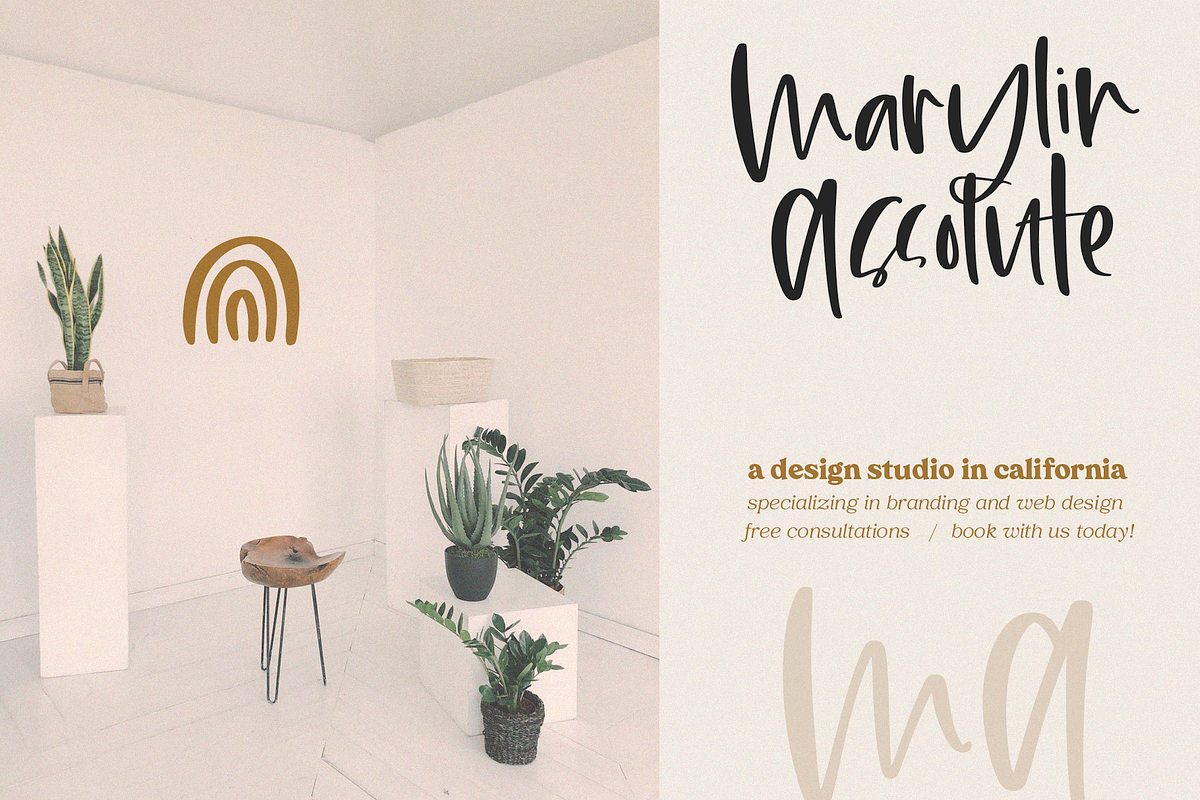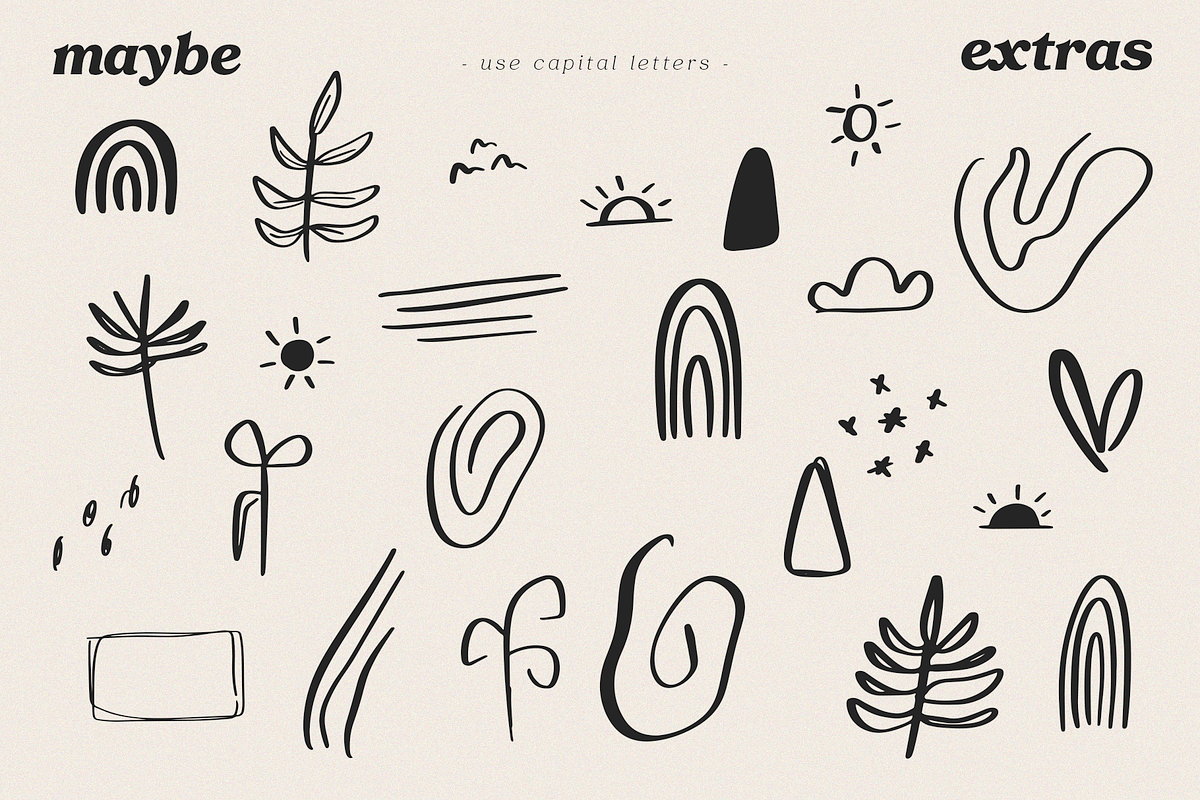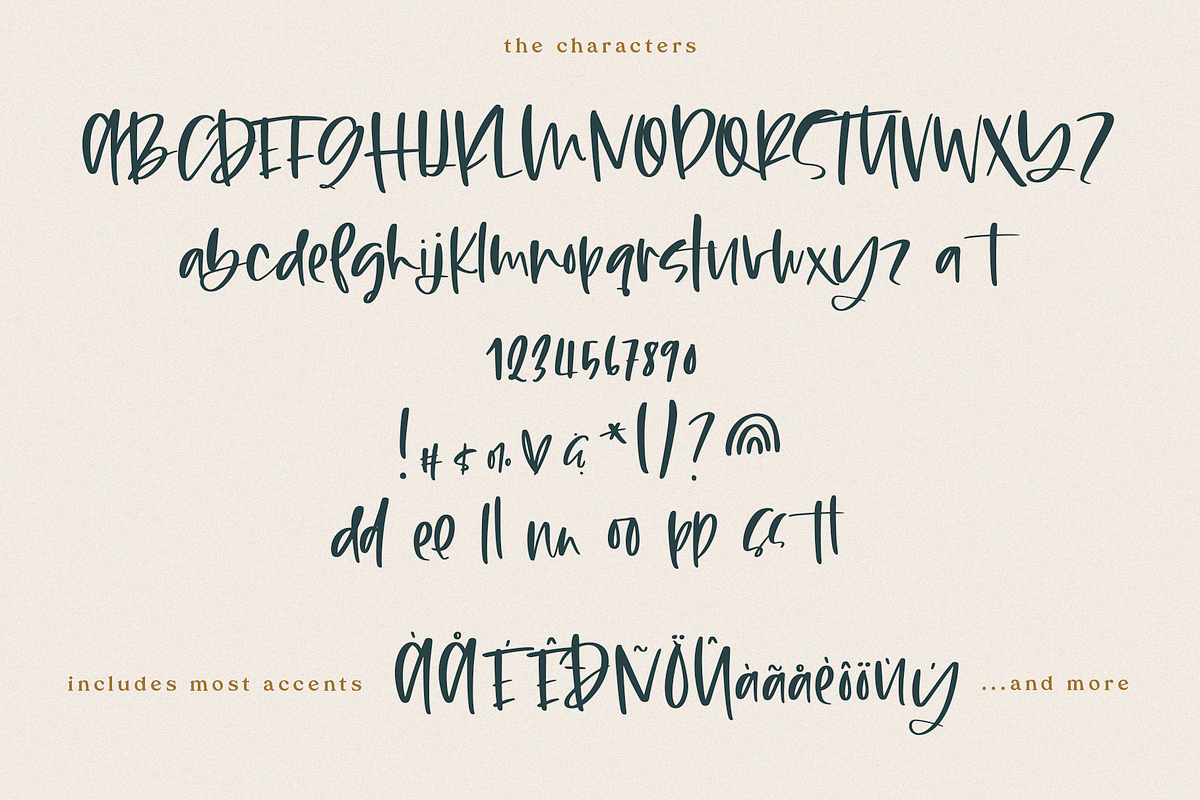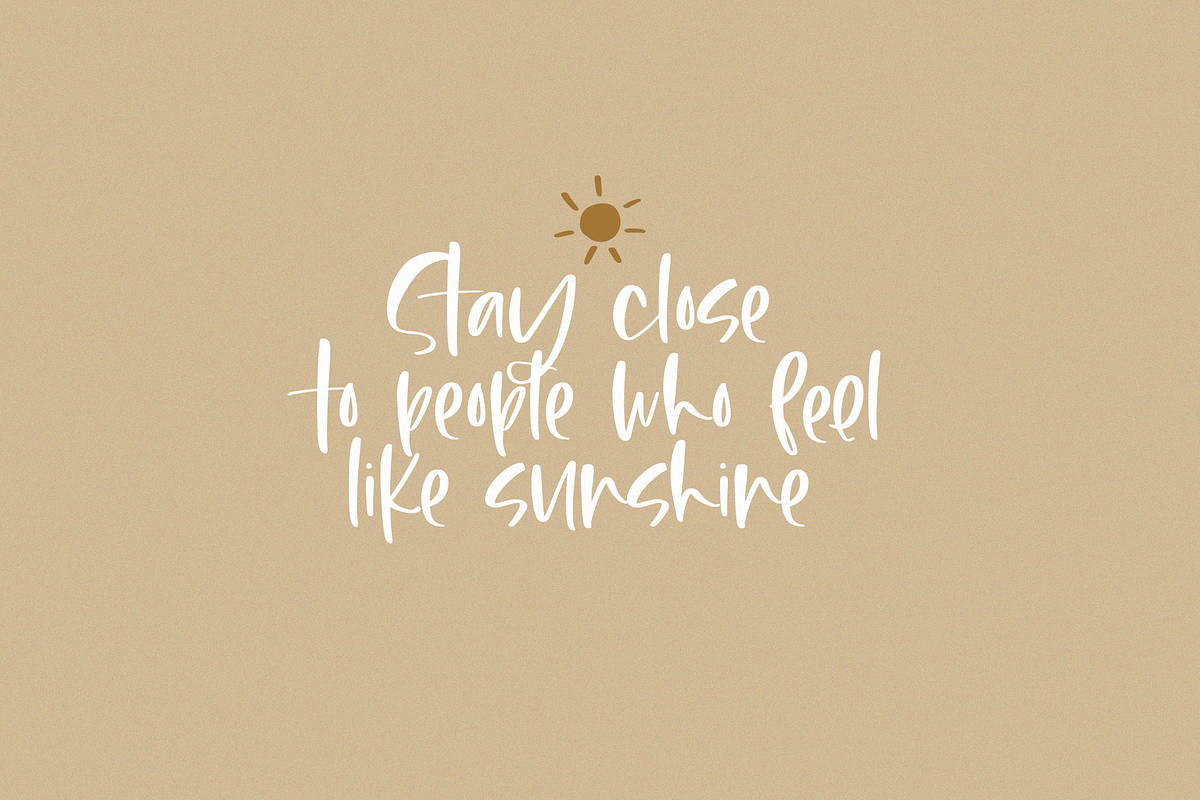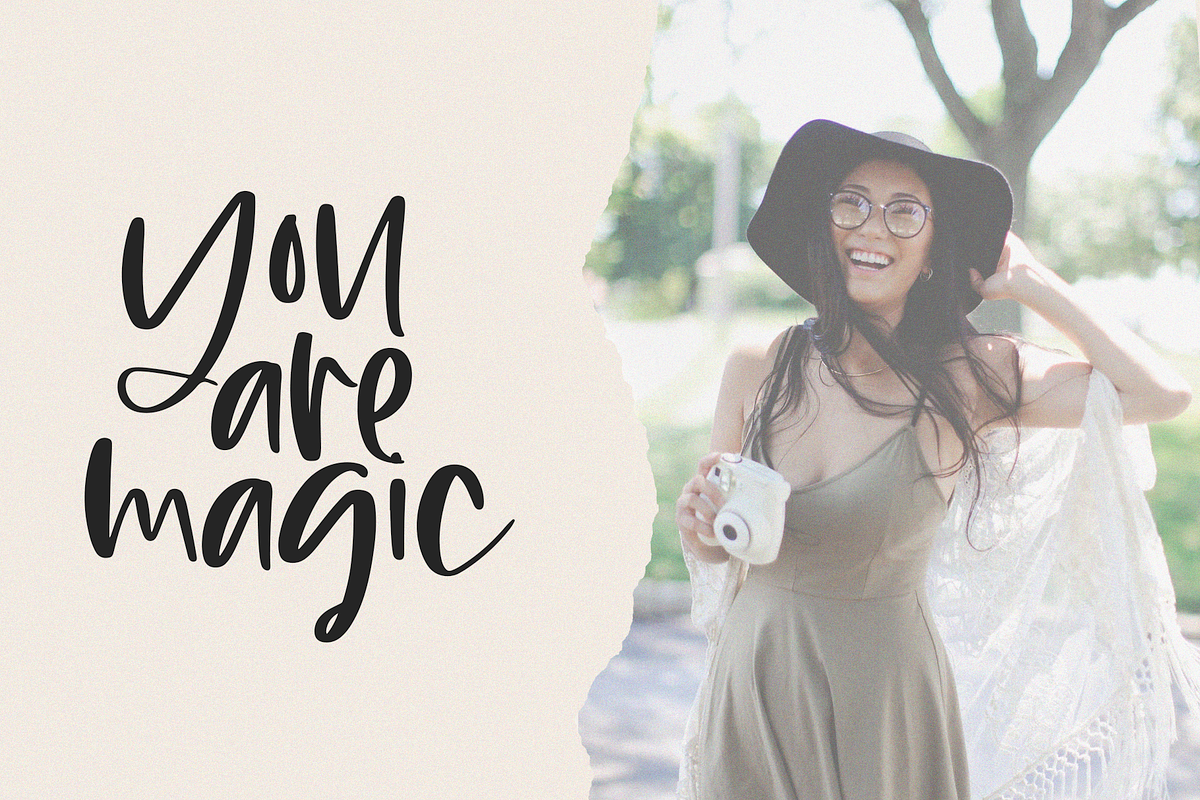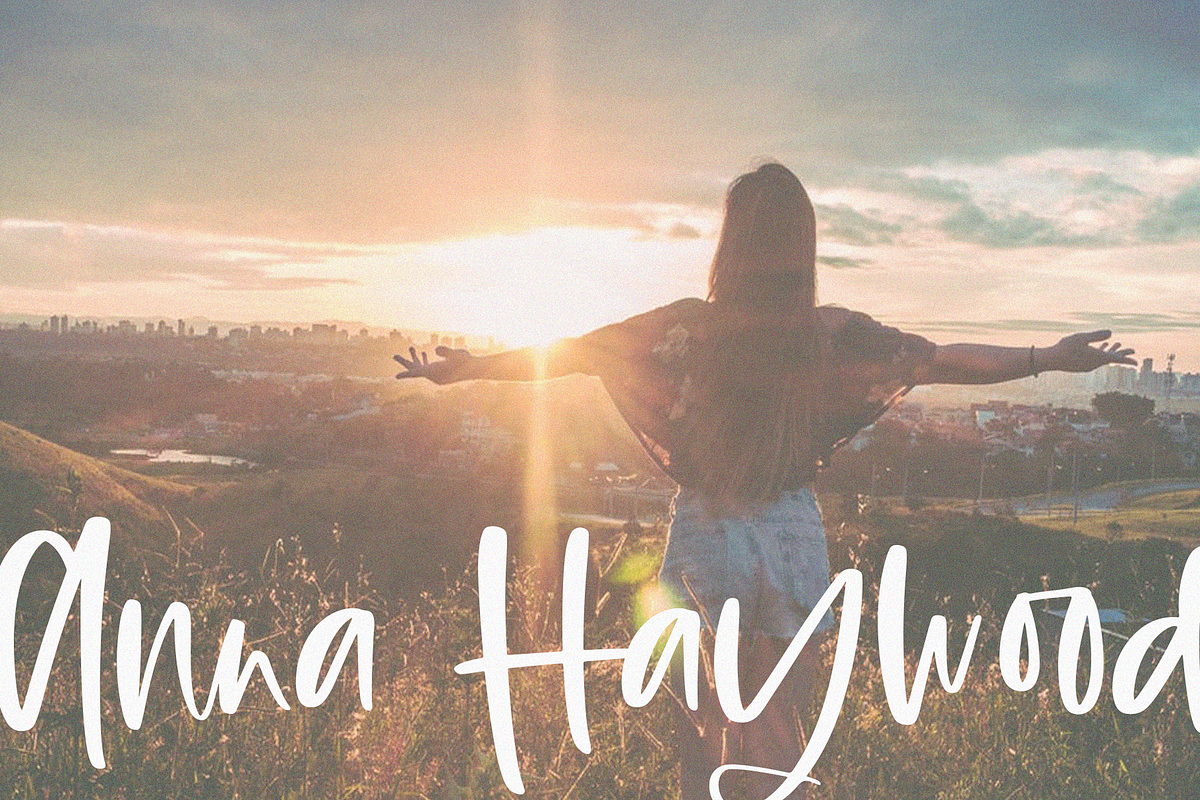
Maybe | Script Font + Doodles
Maybe is a carefree, handwritten script font. This font has a fun bohemian vibe. A set of complimentary doodles are included as a font file (use capital letters A-Z).
This font is perfect for modern projects, headings, blogs, logos, brandings, invitations and more!
Accent characters are included.